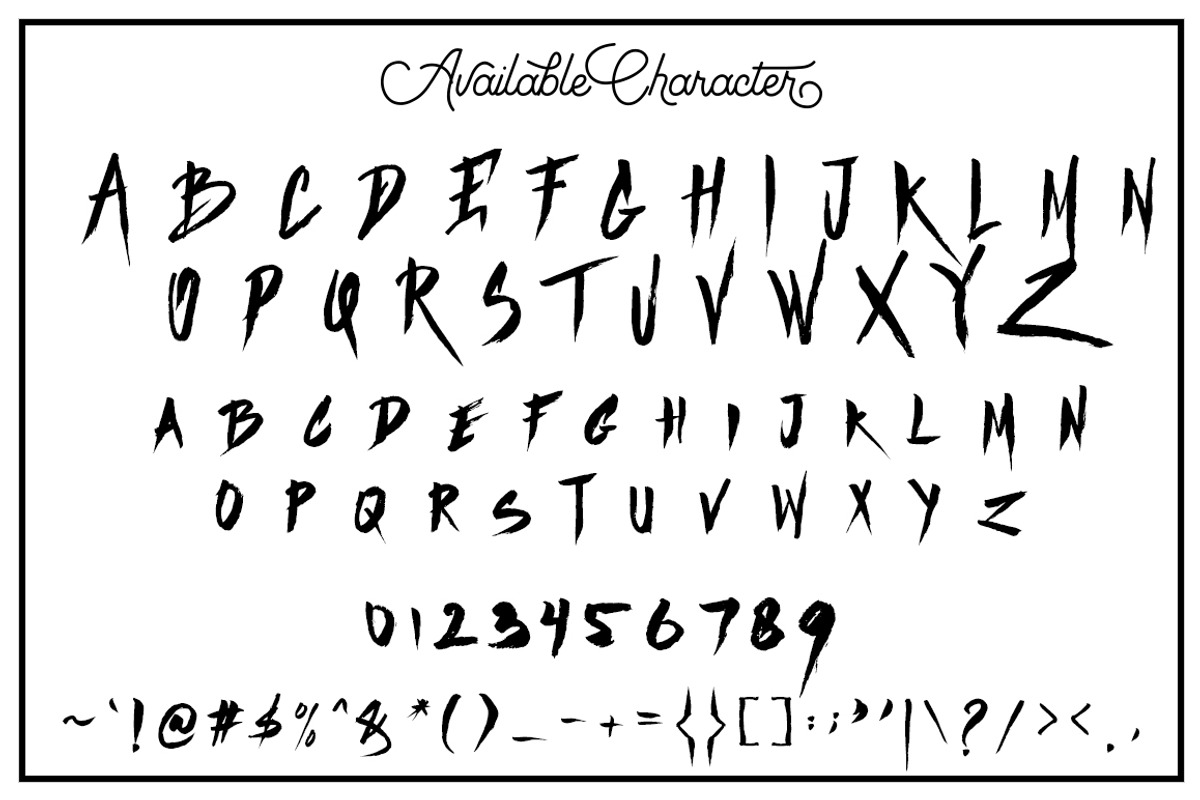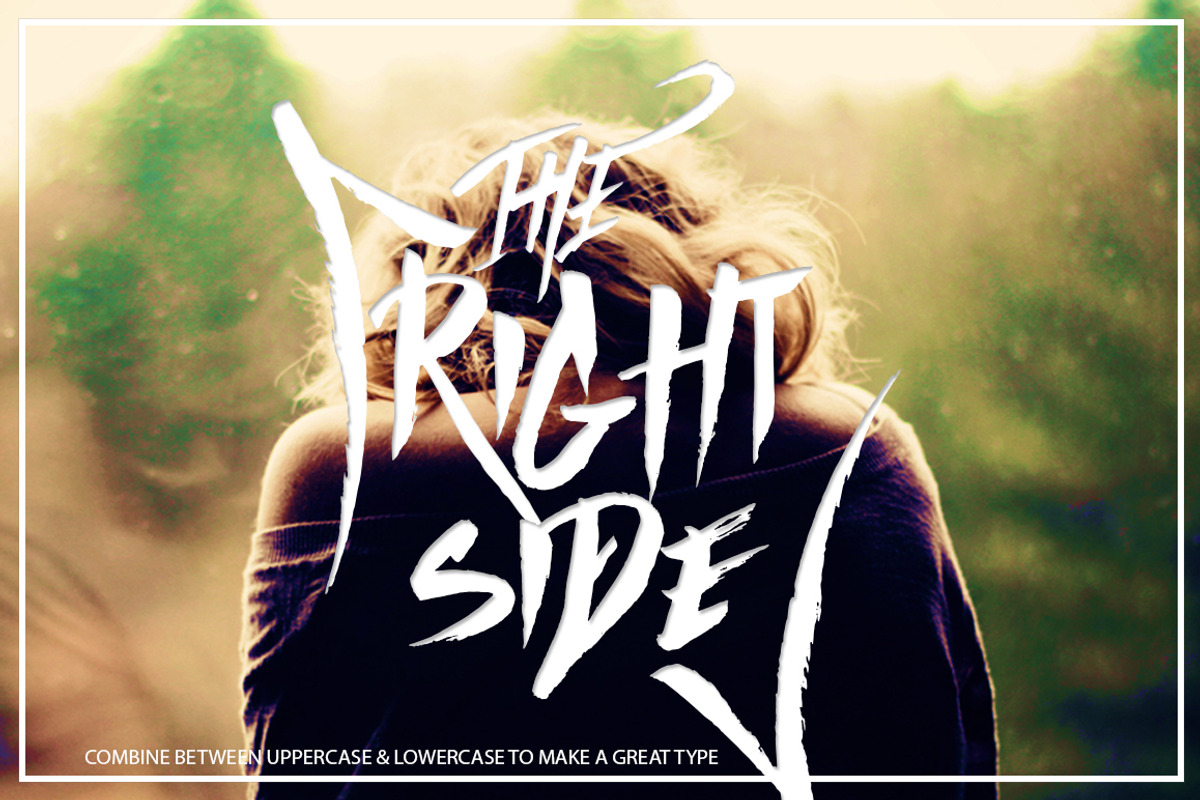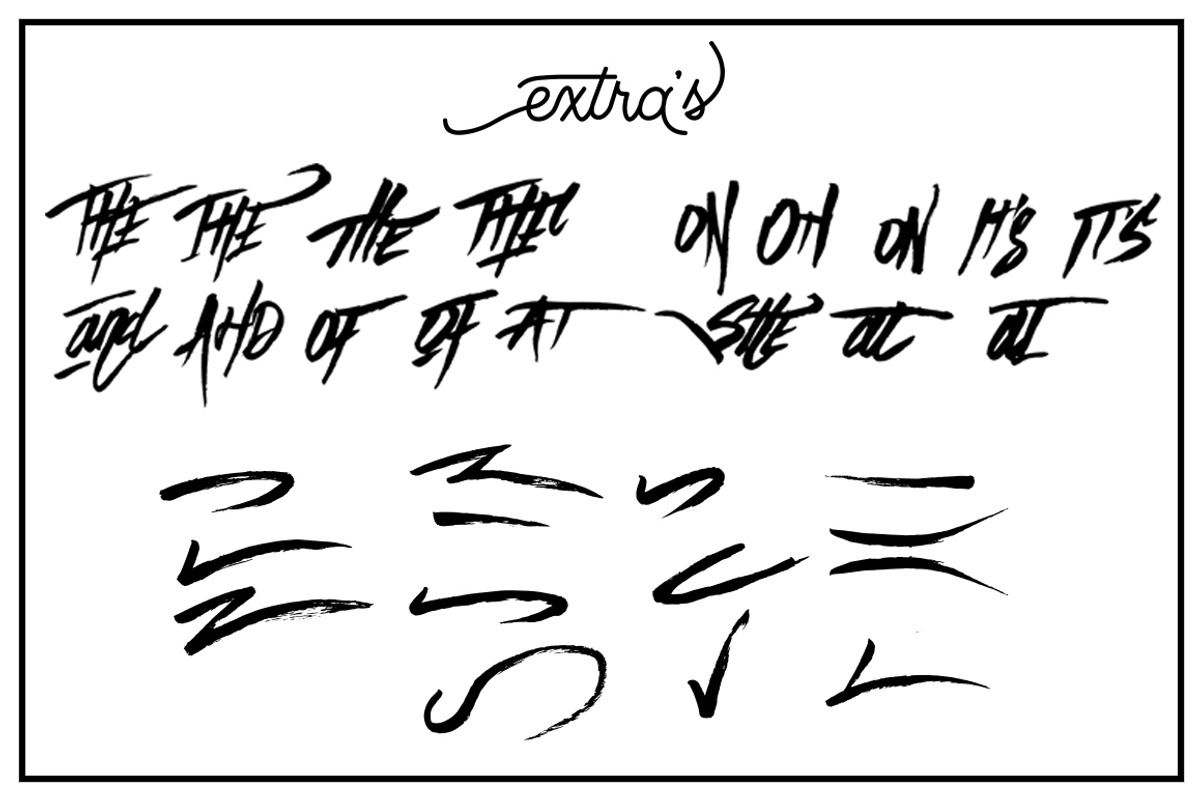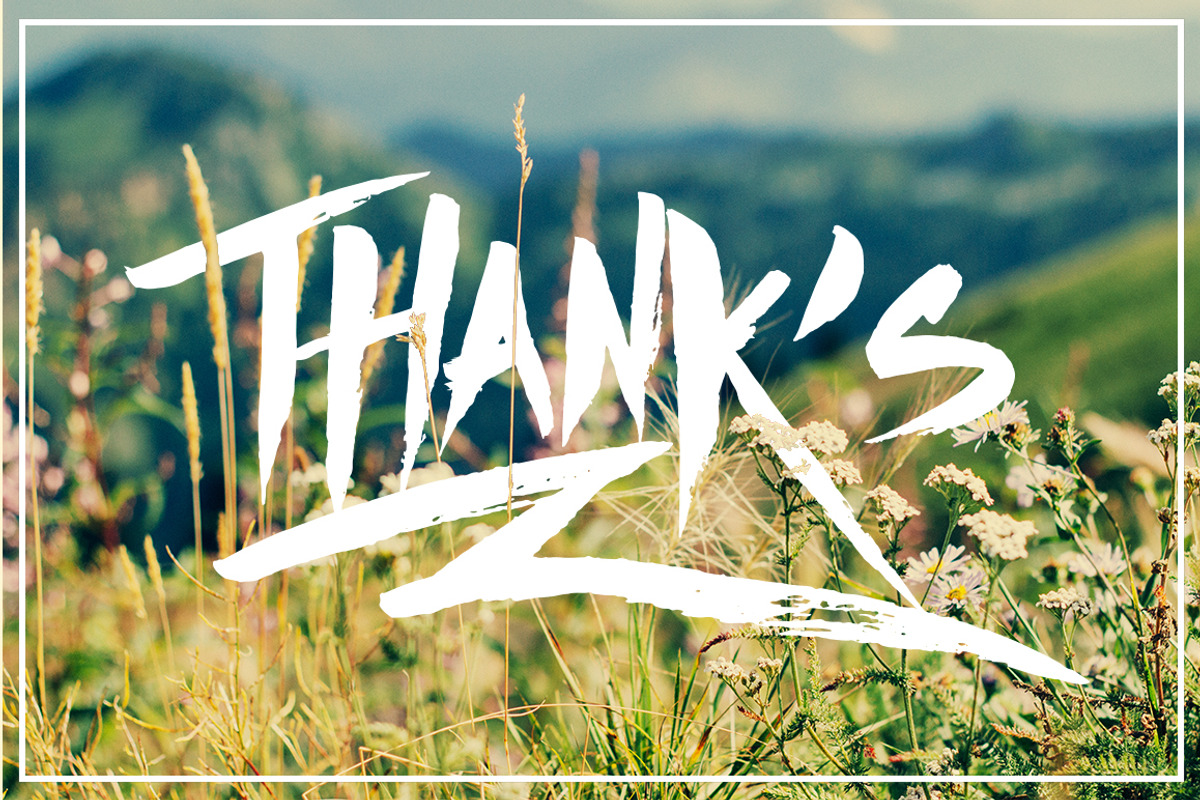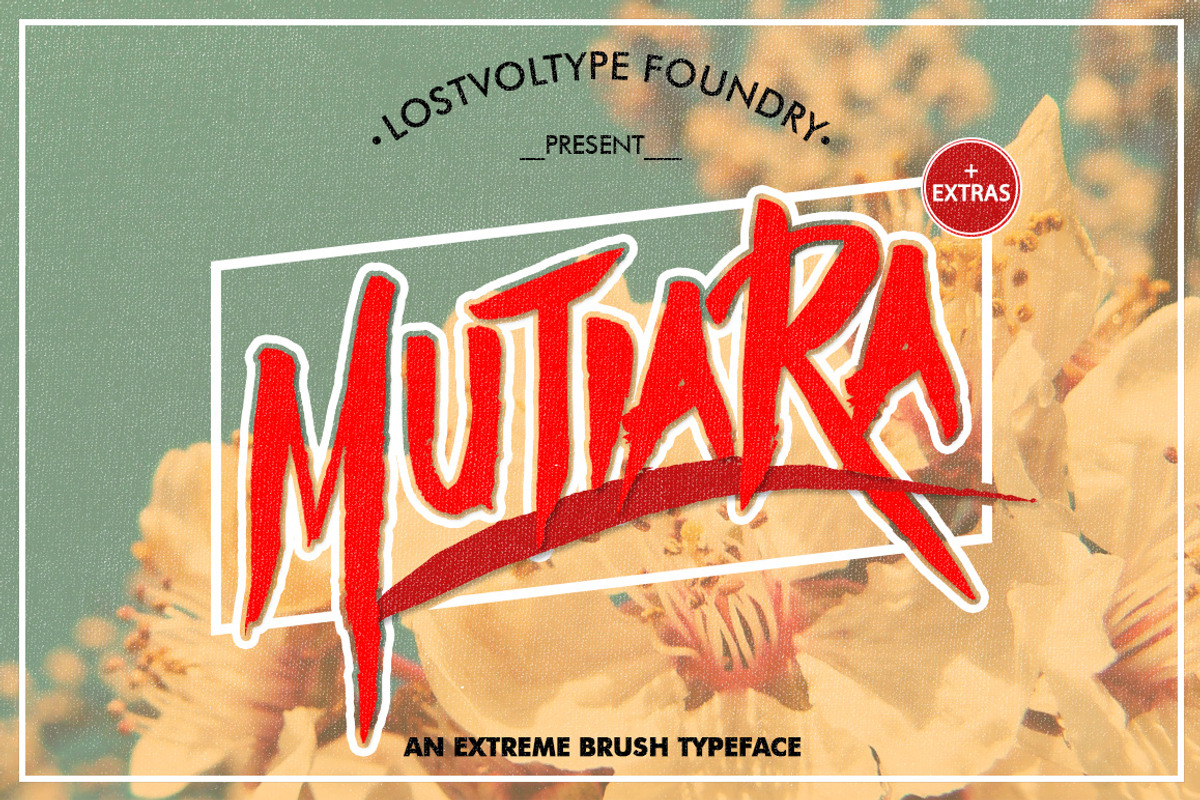
Mutiara Typeface
Mutiara Typeface by Ryan Prasetya is a font selected for branding, posters, packaging, typography.
- Combine between uppercase & lowercase to create a great type.
Why Mutiara Typeface is worth a look
Mutiara Typeface by Ryan Prasetya fits naturally into Branding, posters, packaging, typography.